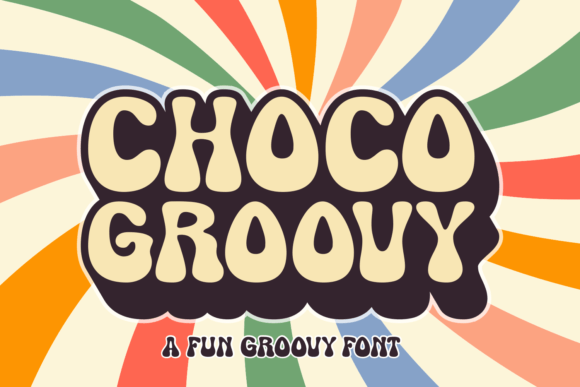
Introduction to Choco Groovy Font
Unleash the creativity in you with these captivating display fonts.
These intricately designed fonts are sure to add a cute and playful accent to your projects Ideal for apparel designs, the authenticity of these fonts speak volumes on your style.
Key Features of Choco Groovy Font
Why Choose Choco Groovy Font?
Choco Groovy Font offers exceptional quality and versatility, making it a valuable addition to your design toolkit. Whether you’re creating for personal projects or commercial use, Choco Groovy Font delivers professional results.